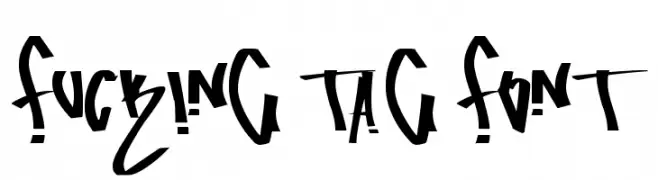
A bold, graffiti-inspired font with sharp, angular lines and dynamic flow.
A bold, spiky, and dynamic decorative font with high contrast.
A raw, hand-drawn font with jagged, energetic strokes.
A jagged, edgy font with sharp, irregular strokes and a distressed appearance.
A bold, jagged font with sharp, angular edges and a dynamic, aggressive style.
A bold, jagged, hand-drawn font with an edgy and energetic style.
A jagged, energetic font with irregular, zigzag outlines.
A bold, italic font with rugged, jagged edges and a dynamic, energetic style.